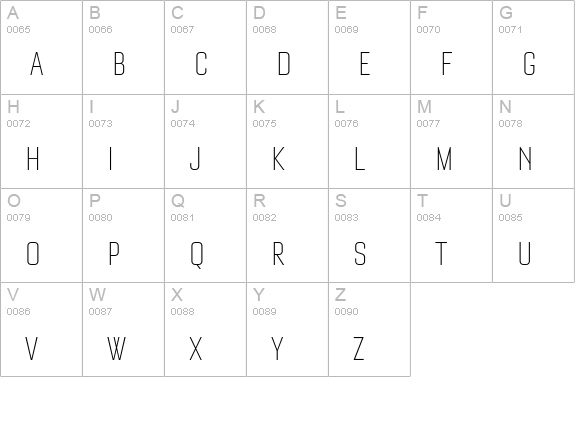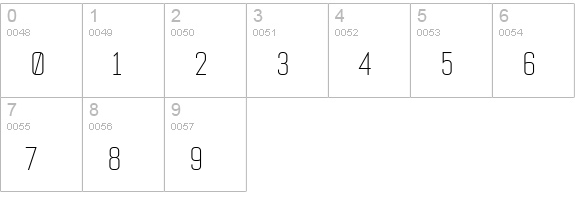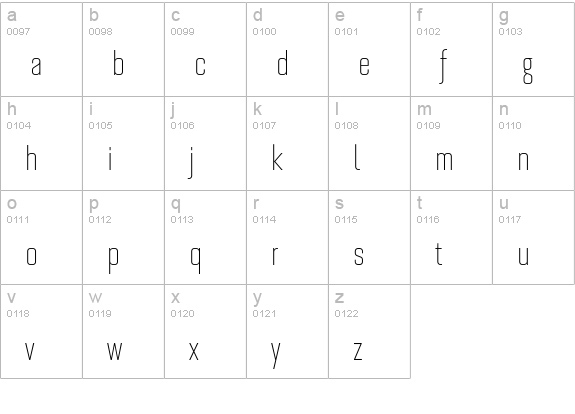
Bourgeois LightCond Font Details
Bourgeois LightCond font exudes a sophisticated and elegant charm that is perfect for adding a touch of class to your designs. Its sleek and stylish design makes it ideal for a wide range of projects, from branding to editorial work. This versatile font features a modern and minimalist aesthetic that will elevate any design it is used in. Best of all, Bourgeois LightCond font is available for free download at FontsMarket.com. This means you can easily access this high-quality font and use it in your projects without any cost. Don't miss out on the opportunity to add this stunning font to your collection and enhance your design projects with its timeless appeal.